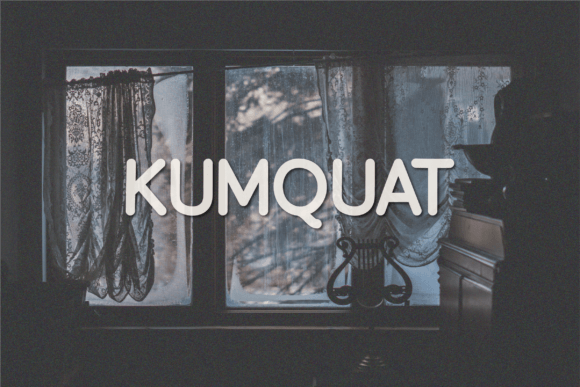
Step into the world of Kumquat Font, a charming all-caps display typeface that exudes playfulness and sophistication, designed to captivate and inspire. This carefully crafted font, brought to life by the talented Becraft, is an ode to timeless elegance and modern aesthetics. Join the creative revolution and unlock a world of possibilities with Kumquat Font.
Kumquat Font's captivating uppercase characters dance across any project, adding a touch of whimsy and sophistication. Its smooth, flowing lines and clean edges make it ideal for creating logos, social media posts, and eye-catching headlines that demand attention. With its playful personality, Kumquat Font is perfect for adding a touch of fun and charm to crafting projects, t-shirts, decals, cards, invitations, and more.
Let Kumquat Font be your creative companion, taking your designs to new heights. Whether you're a seasoned designer seeking a font that exudes timeless elegance or a crafting enthusiast looking to add a personal touch to your projects, Kumquat Font will elevate your creations with its versatility and charm. Embrace the allure of Kumquat Font and embark on a creative journey that knows no bounds.
Kumquat Font is more than just a font - it's an invitation to express your creativity and leave a lasting impression. Whether you're a seasoned designer or just starting your creative journey, this font will empower you to make a statement and captivate your audience. Its user-friendly design makes it accessible to all, ensuring that your creative visions come to life with ease.
Don't let ordinary fonts hold you back. Embrace the allure of Kumquat Font and embark on a creative journey that knows no bounds. Let your imagination soar as you craft stunning logos, social media posts, and crafting projects that radiate timeless elegance and modern flair. With Kumquat Font as your creative ally, you'll leave a lasting impression wherever your designs go.